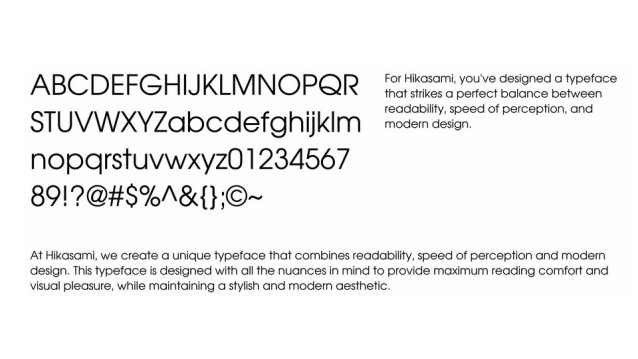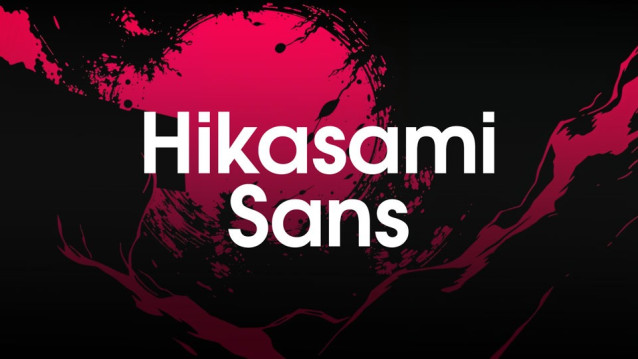
Hikasami Sans Font Family
Hikasami Sans Font Family is a modern geometric sans-serif typeface designed for legibility and simplicity. Hikasami Sans strikes a perfect balance between readability, speed of perception, and modern design. It is designed to be used in headlines, logos, posters, and other large display sizes.
Hikasami Sans is a unique typeface that combines readability, speed of perception and modern design. This typeface is designed with all the nuances in mind to provide maximum reading comfort and visual pleasure, while maintaining a stylish and modern aesthetic.